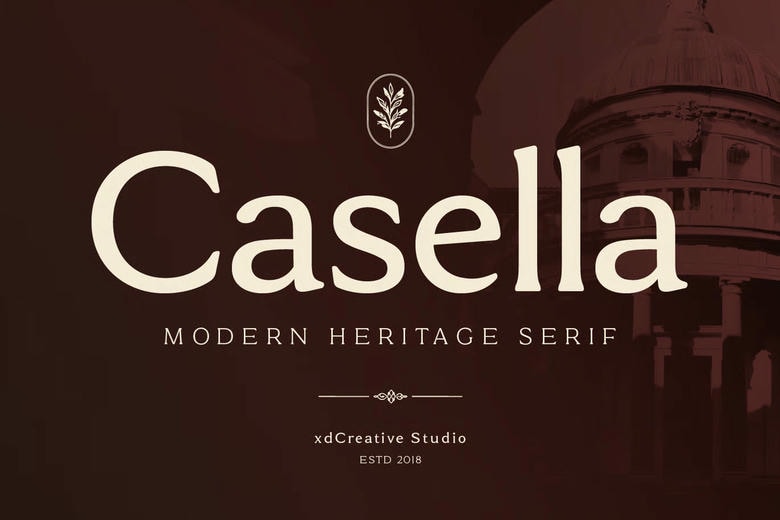
Casella Font
Casella is a serif font inspired by classic typography, but it also has a fresh and expressive look. Its graceful curves, strong strokes, and unique details make every word noticeable.
Casella works well for branding, fashion, editorial projects, packaging, posters, invitations, and cultural events. It stands out when typography is central to the visual identity, not just used to share information.
Casella offers a range of stylistic alternates, uppercase and lowercase options, alternate numerals, ligatures, small caps, punctuation, and symbols. With these OpenType features, you can create a clean, refined wordmark or add more personality when your design needs it.
Casella Serif Font